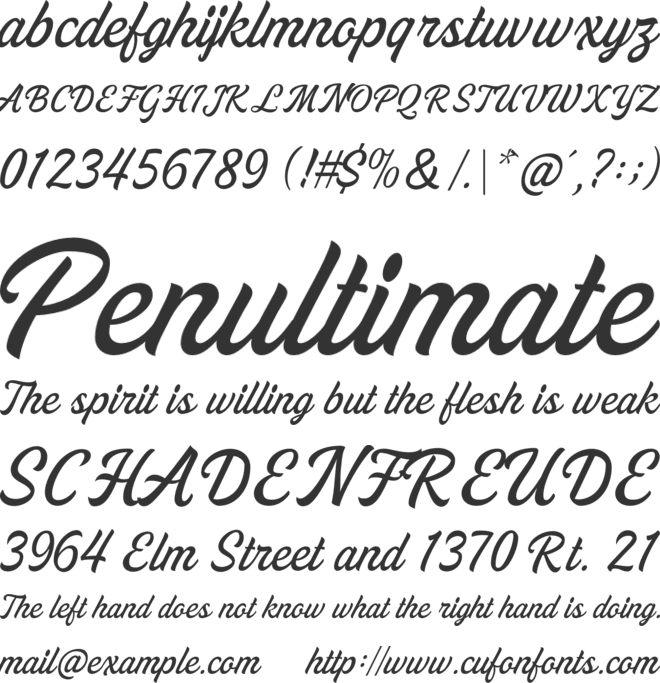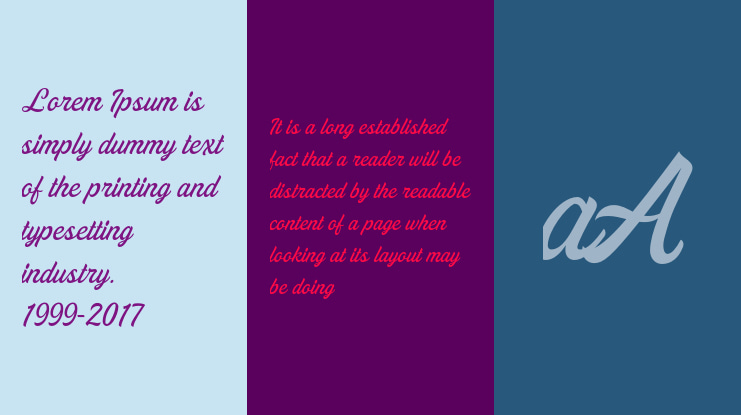
Jolicia Type Foundry
Scrakers is a bold script typeface inspired by classic sign painting
brush lettering, crafted to deliver strong visual impact with an
authentic hand-painted feel. Featuring expressive brush strokes,
dynamic rhythm, and confident flow, Scrakers is ideal for branding,
logos, packaging, posters, apparel, signage, and striking headlines.
Packed with rich OpenType features including stylistic alternates,
contextual alternates, ligatures, and multilingual support, Scrakers
gives designers full creative freedom for both vintage and modern
designs.